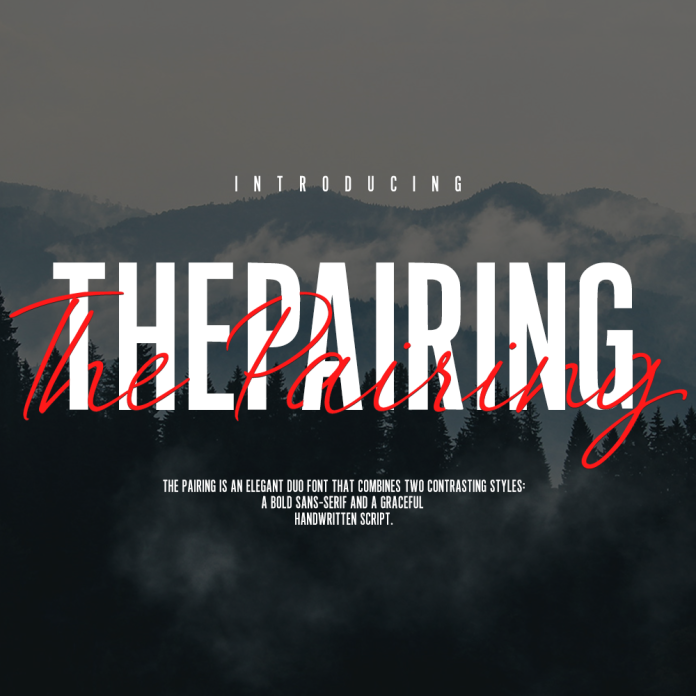
This modern font duo features a bold sans-serif and a stylish handwritten script. Designed to work beautifully together, these fonts are perfect for home decor, quotes, invitations, vinyl projects, greeting cards, and more.